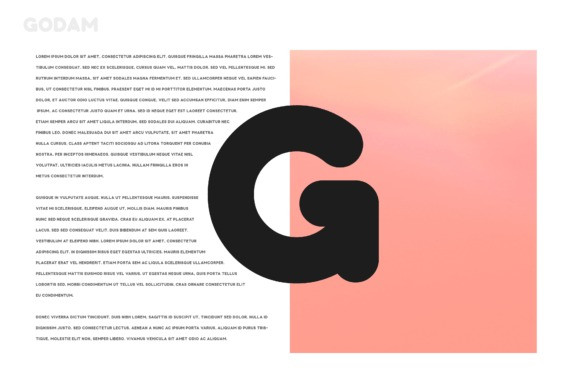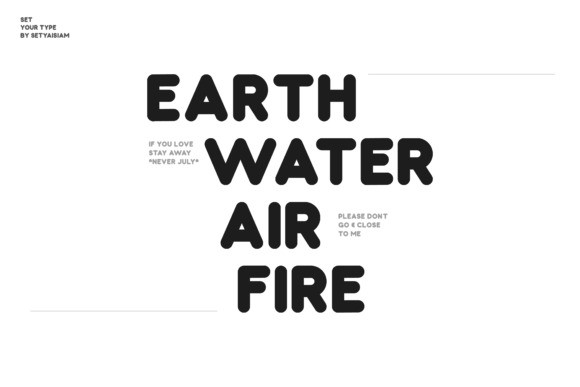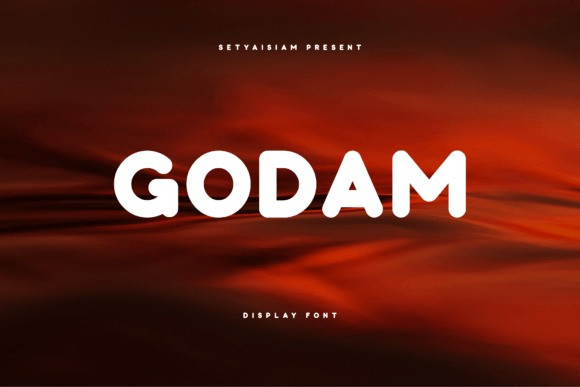
Godam Font
Godam Font is a cute and charming display font. Whimsical and a bit quirky, this font will brighten up each of your designs. Add it confidently to your projects,and you will love the results.